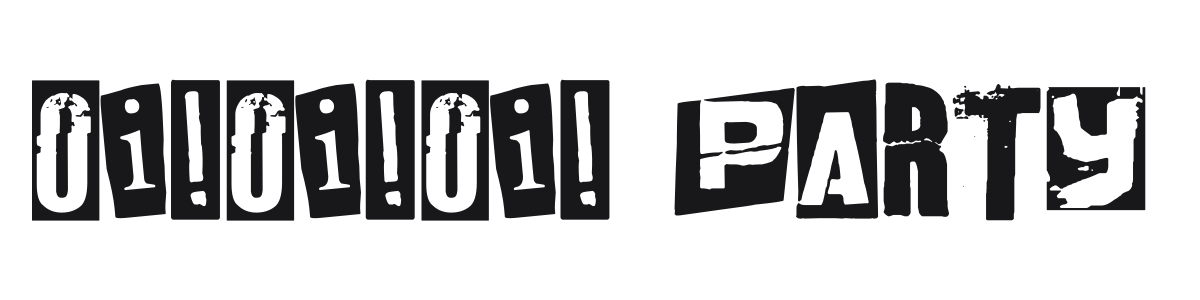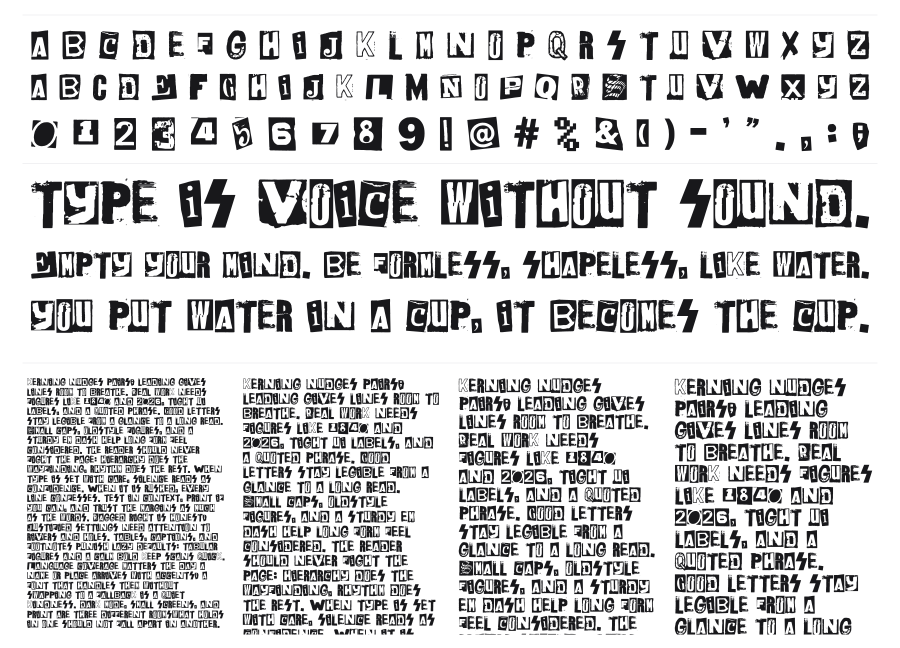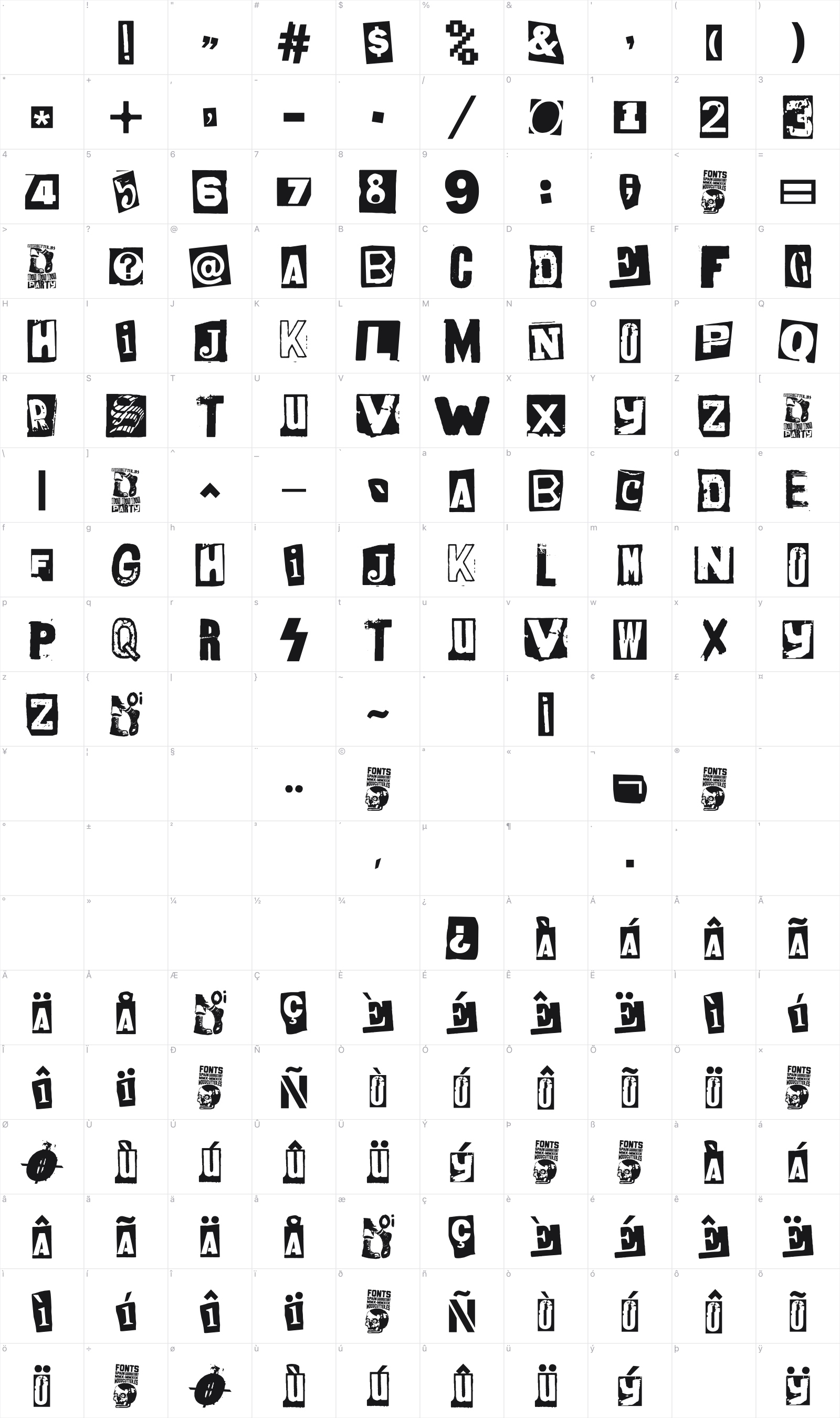
Oi!oi!oi! Party
Oi!oi!oi! Party is a raw, punk-inspired display face by Woodcutter where every letter looks torn from a collage and stamped onto the page. The blocky uppercase characters carry heavy weight, irregular edges, and inky distress that channels DIY zine culture and classic punk graphics. It commands attention at large sizes and thrives on posters, album art, and anything that needs to feel like it could start a mosh pit.